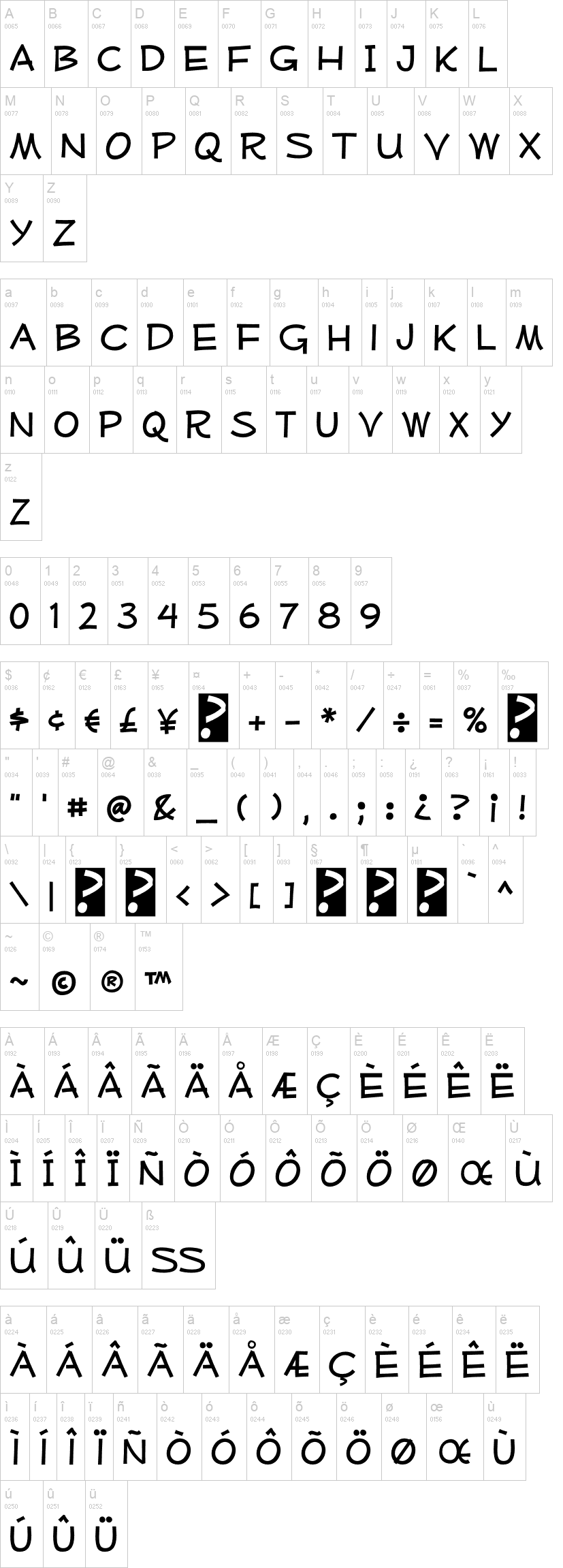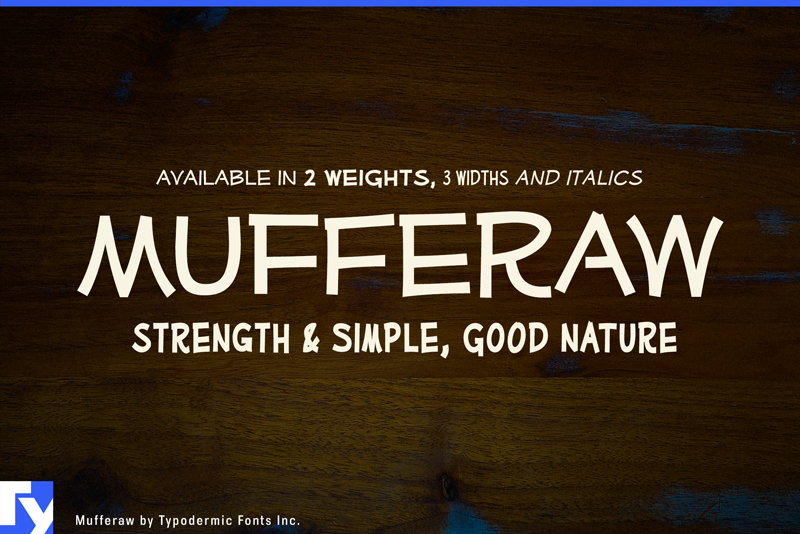
Note of the authorMufferaw is a charming and uncomplicated comic book typeface. The woodsy style is reflected in the well-defined but expressive contours. Mufferaw is available in two weights, three widths, and italics. Check out the outline and 3D variations as well. Most Latin-based European writing systems are supported, including the following languages. Afaan Oromo, Afar, Afrikaans, Albanian, Alsatian, Aromanian, Aymara, Bashkir (Latin), Basque, Belarusian (Latin), Bemba, Bikol, Bosnian, Breton, Cape Verdean, Creole, Catalan, Cebuano, Chamorro, Chavacano, Chichewa, Crimean Tatar (Latin), Croatian, Czech, Danish, Dawan, Dholuo, Dutch, English, Estonian, Faroese, Fijian, Filipino, Finnish, French, Frisian, Friulian, Gagauz (Latin), Galician, Ganda, Genoese, German, Greenlandic, Guadeloupean Creole, Haitian Creole, Hawaiian, Hiligaynon, Hungarian, Icelandic, Ilocano, Indonesian, Irish, Italian, Jamaican, Kaqchikel, Karakalpak (Latin), Kashubian, Kikongo, Kinyarwanda, Kirundi, Kurdish (Latin), Latvian, Lithuanian, Lombard, Low Saxon, Luxembourgish, Maasai, Makhuwa, Malay, Maltese, Māori, Moldovan, Montenegrin, Ndebele, Neapolitan, Norwegian, Novial, Occitan, Ossetian (Latin), Papiamento, Piedmontese, Polish, Portuguese, Quechua, Rarotongan, Romanian, Romansh, Sami, Sango, Saramaccan, Sardinian, Scottish Gaelic, Serbian (Latin), Shona, Sicilian, Silesian, Slovak, Slovenian, Somali, Sorbian, Sotho, Spanish, Swahili, Swazi, Swedish, Tagalog, Tahitian, Tetum, Tongan, Tshiluba, Tsonga, Tswana, Tumbuka, Turkish, Turkmen (Latin), Tuvaluan, Uzbek (Latin), Venetian, Vepsian, Võro, Walloon, Waray-Waray, Wayuu, Welsh, Wolof, Xhosa, Yapese, Zapotec Zulu and Zuni.